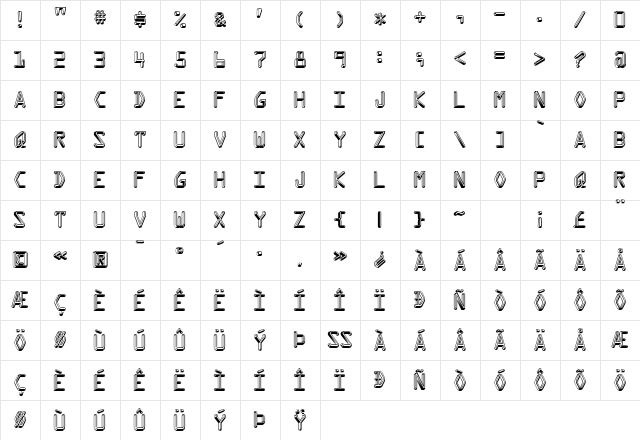
Kredit Regular
Design Context for Kredit Typeface
Kredit is a composed and adaptable typeface that performs quietly and consistently across a wide range of design contexts.